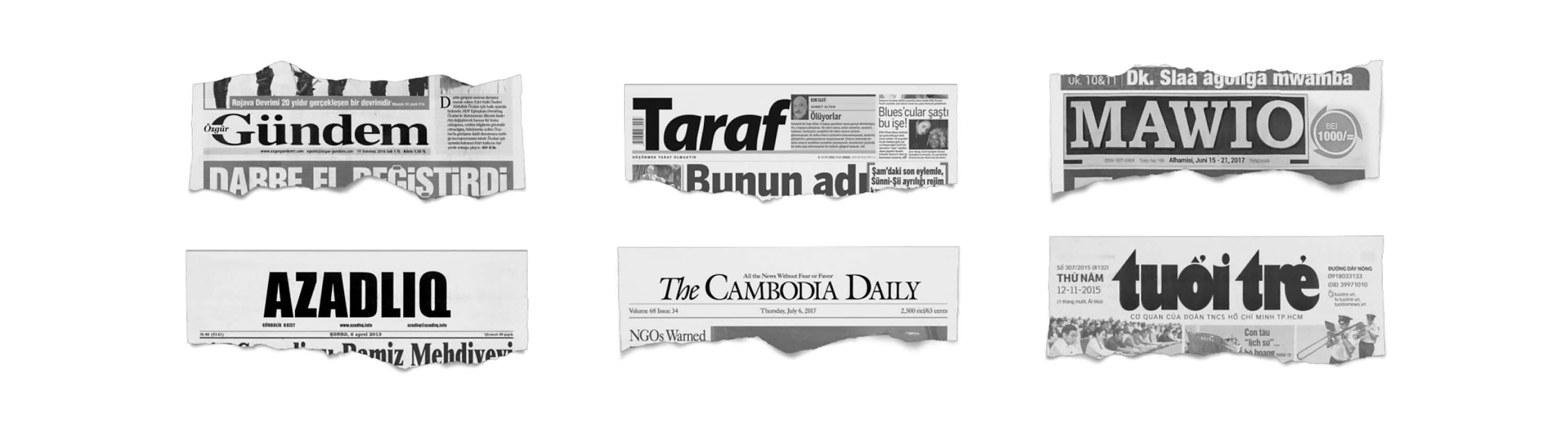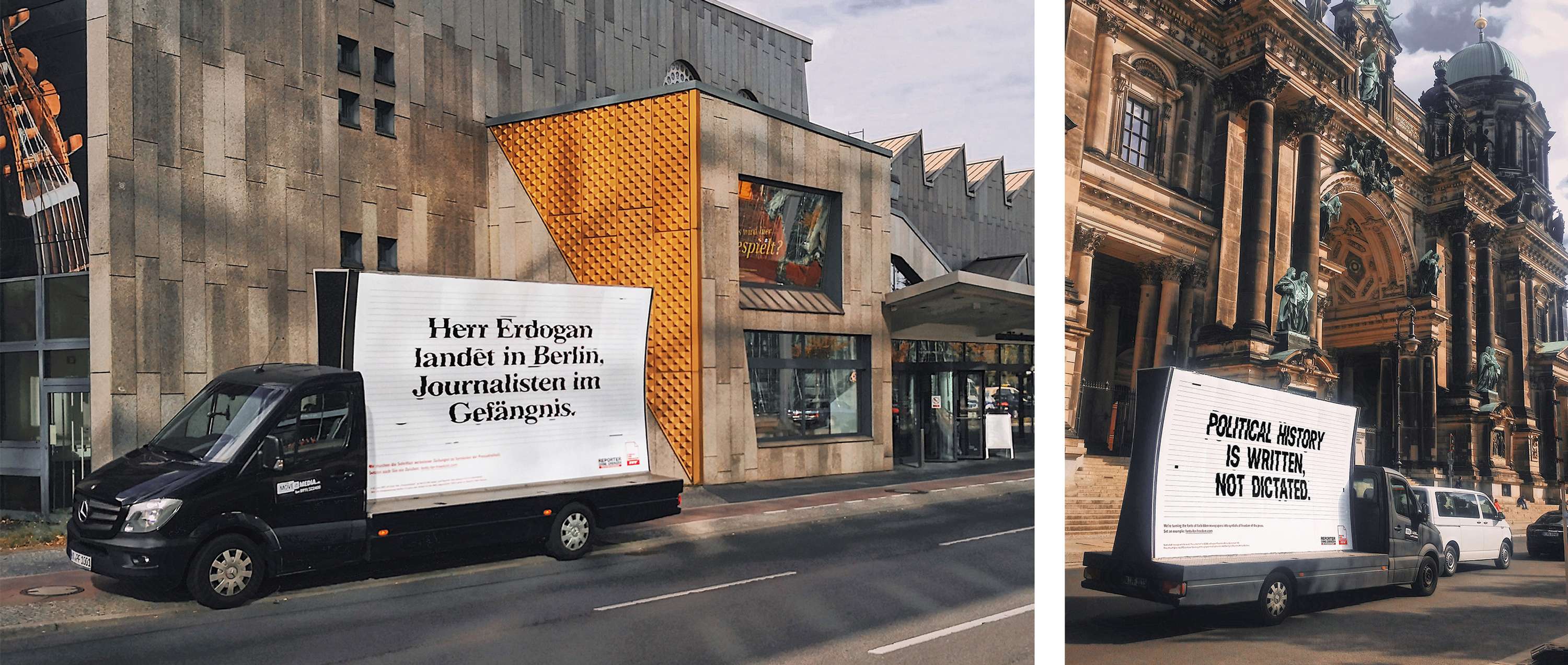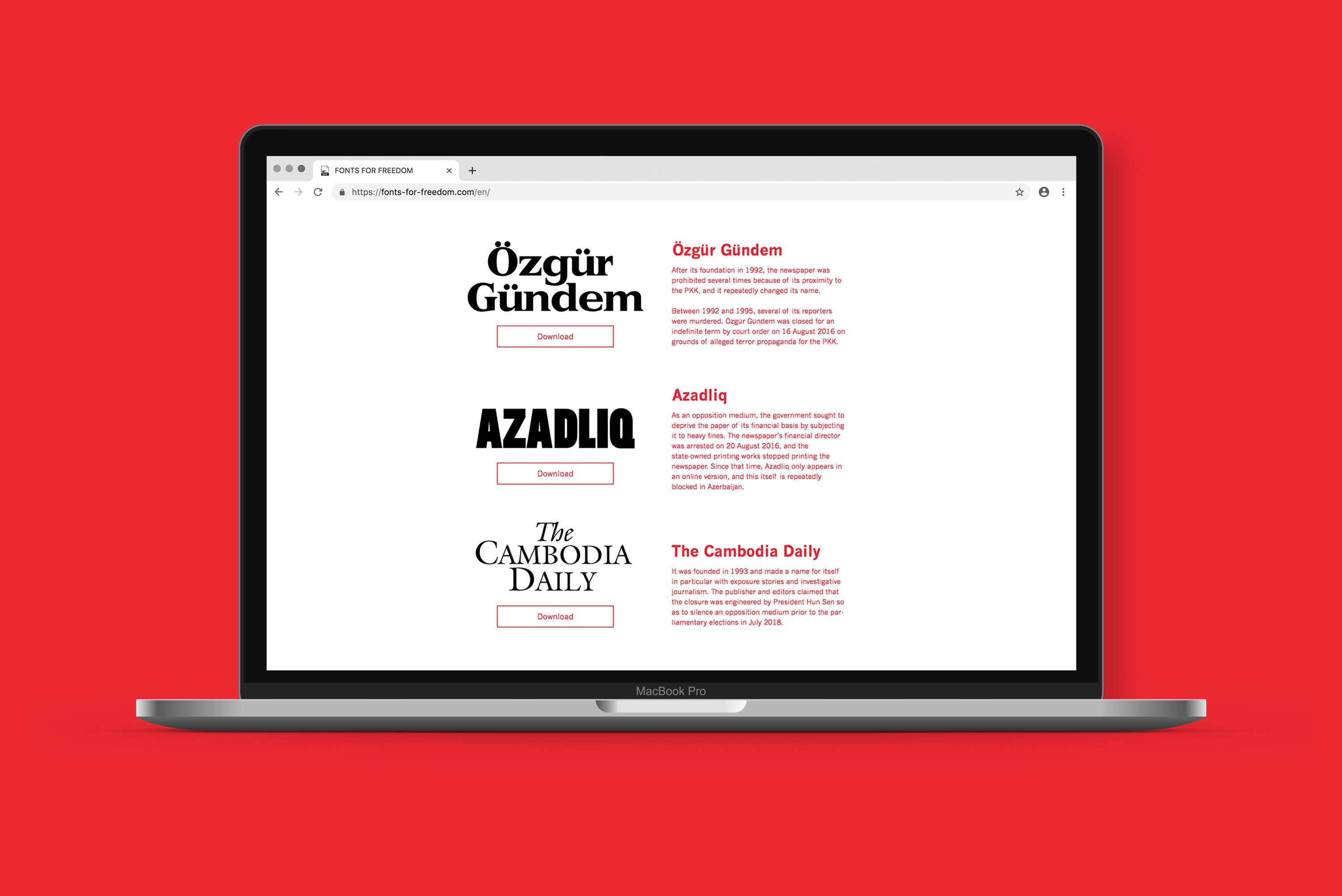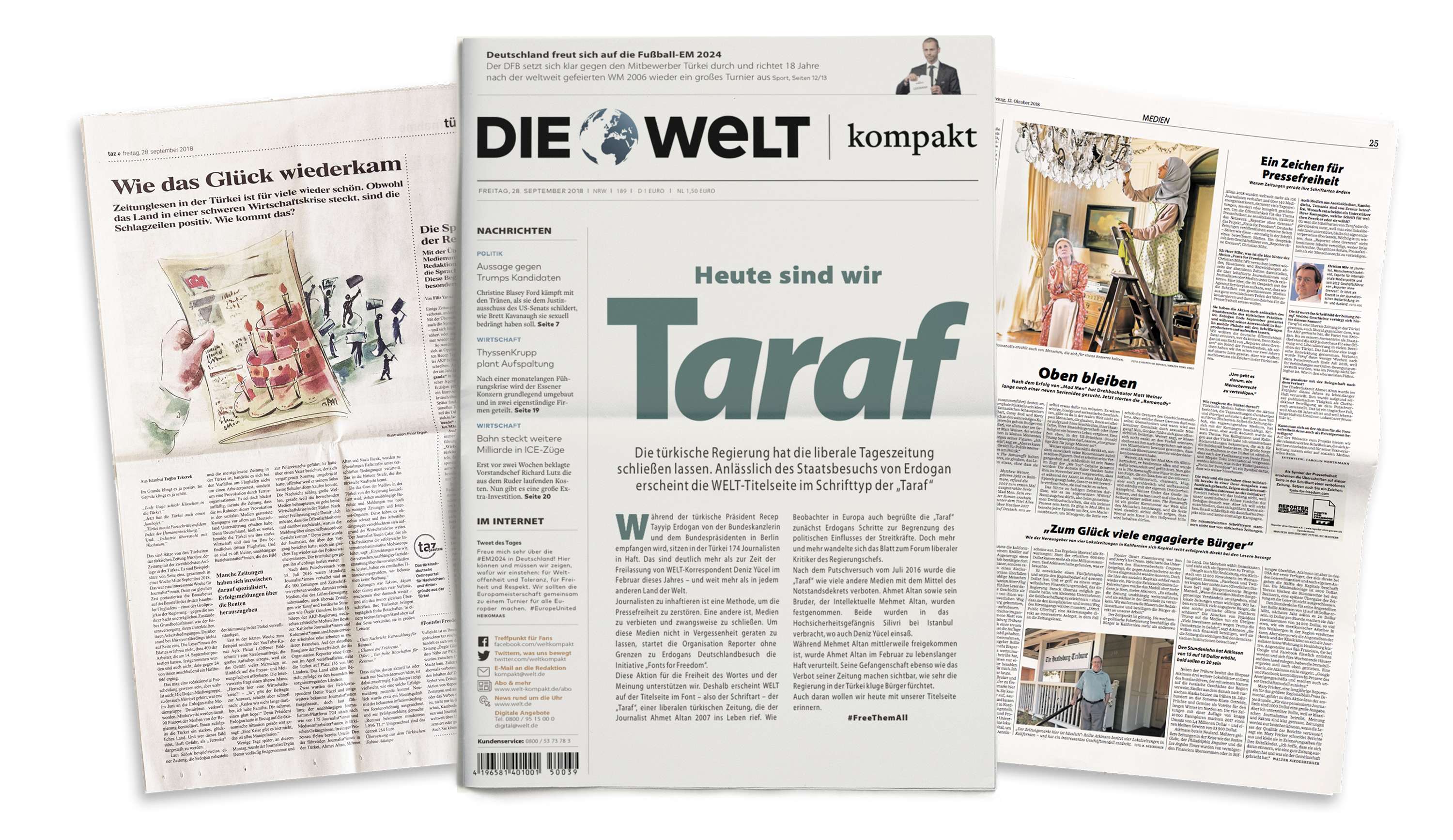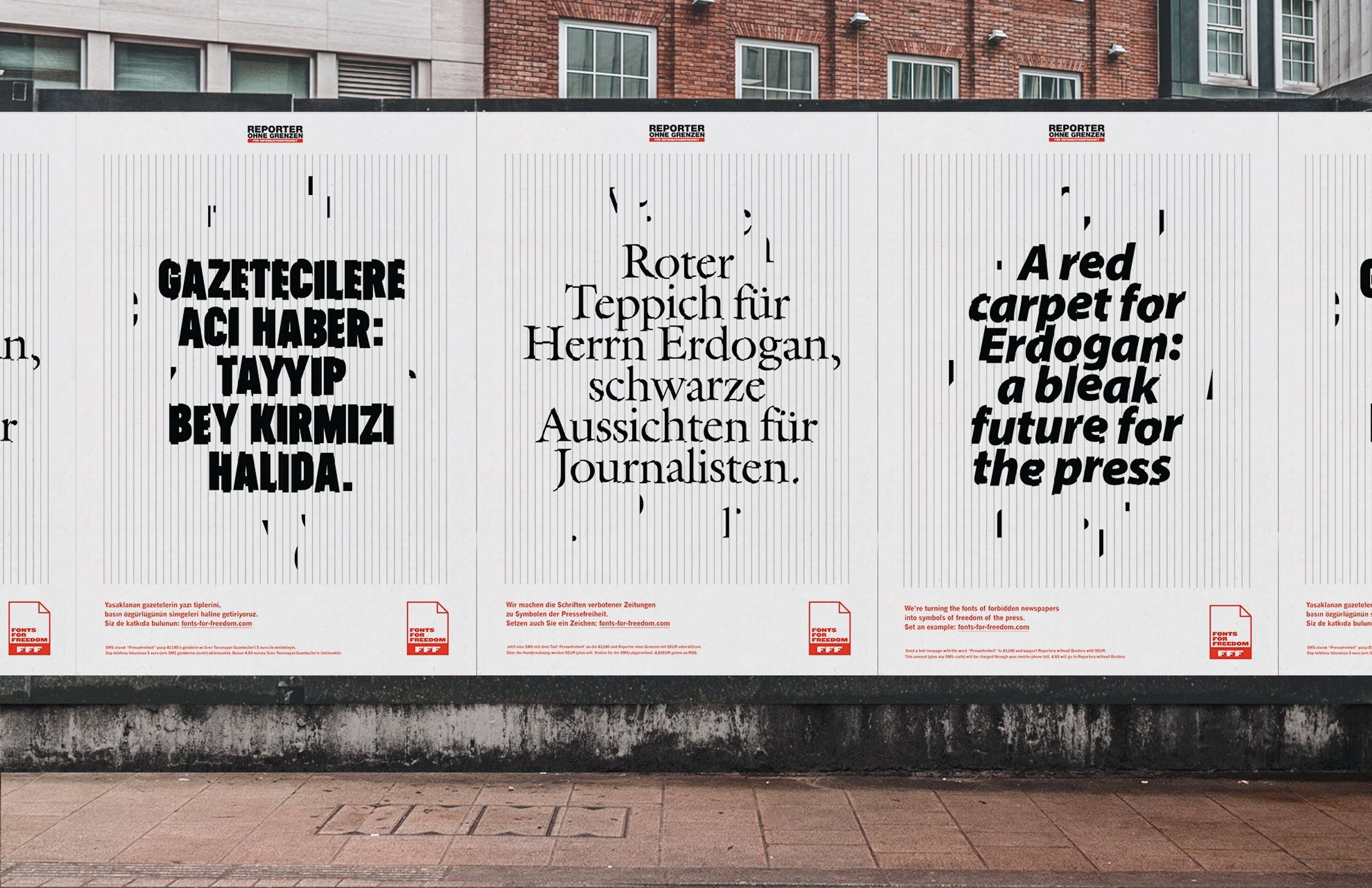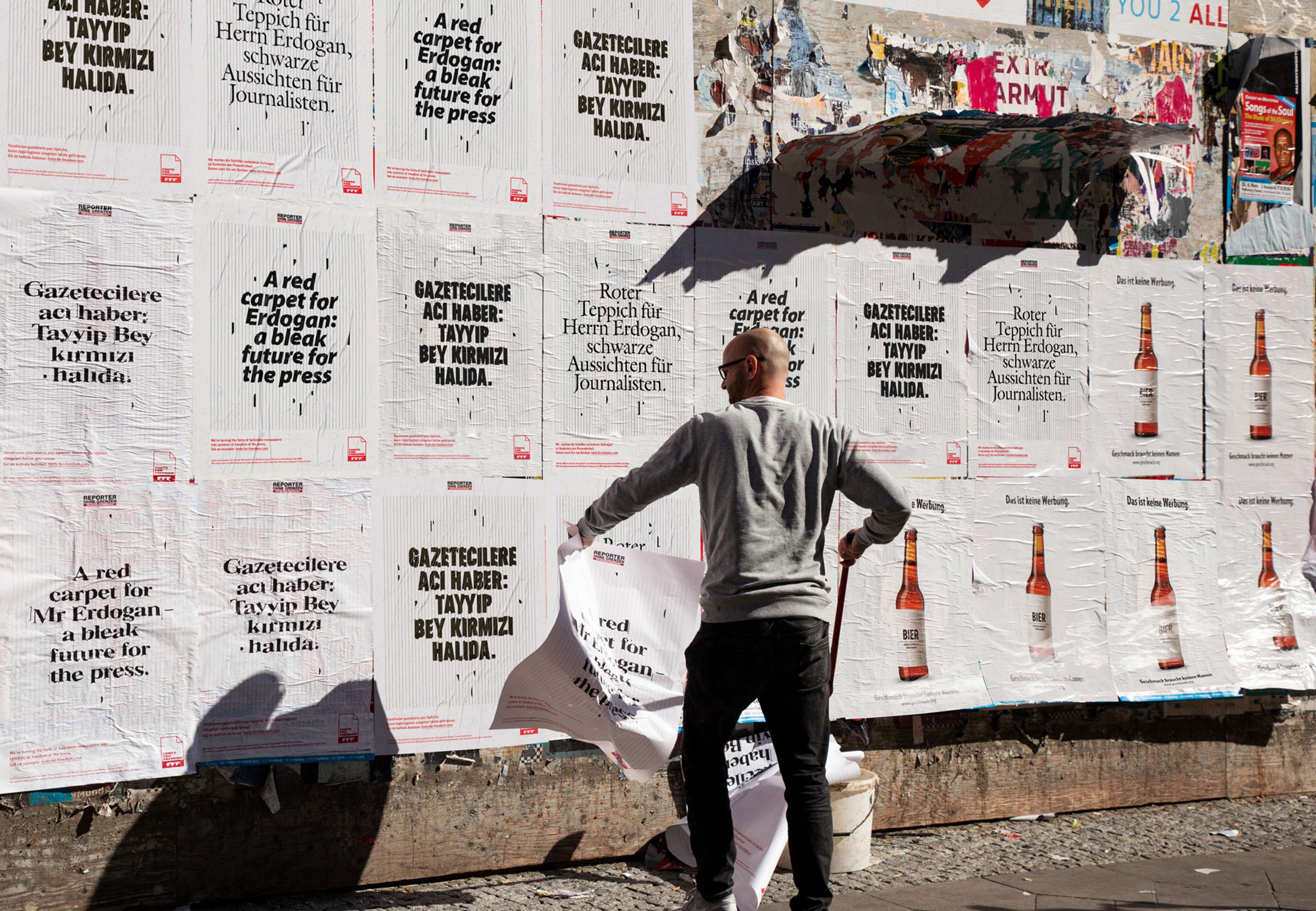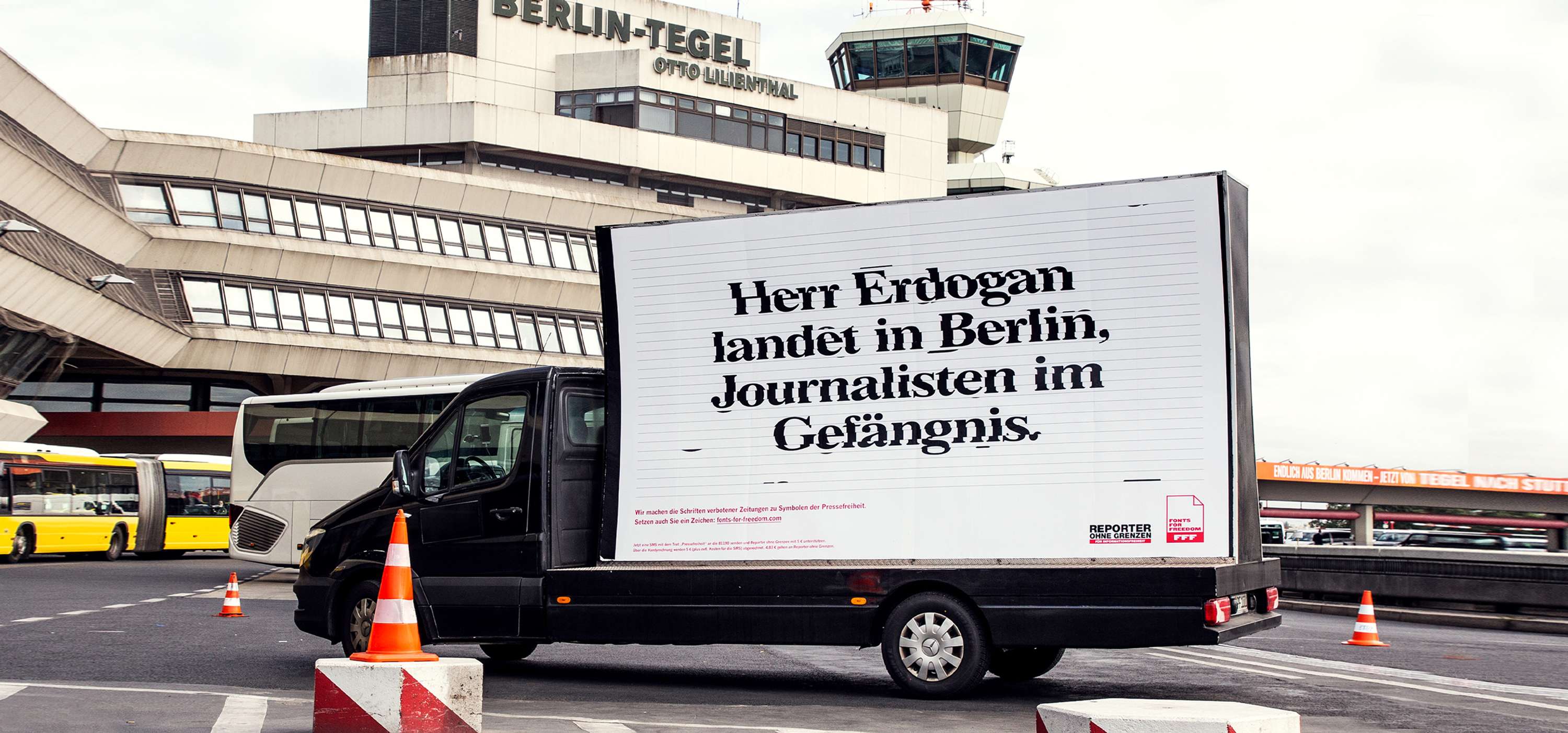
Reporters without Borders – Fonts for Freedom
We took the fonts from newspapers that have been censored and shut down around the world, and created a creative tool that gives people the chance to voice their opinion on freedom of press using these revived fonts.
Outdoor. Upon Turkish president Recep Erdogan’s arrival to Germany was confronted with posters promoting press freedom. With clear statements set in the fonts of newspapers he had just banned.
Online. The fonts-for-freedom.com website provides more information about banned newspapers and their history. Anyone can download the fonts and use them to make a statement in support of press freedom, which they can personally typeset with the help of generator.
Print. Germany’s best-known daily newspapers used the fonts on their front and media pages, replacing their house fonts with Fonts for Freedom.
Results. Fonts for Freedom has brought banned newspapers back into public focus around the world. 132 countries | 830 million contacts | 2.7 million interactions